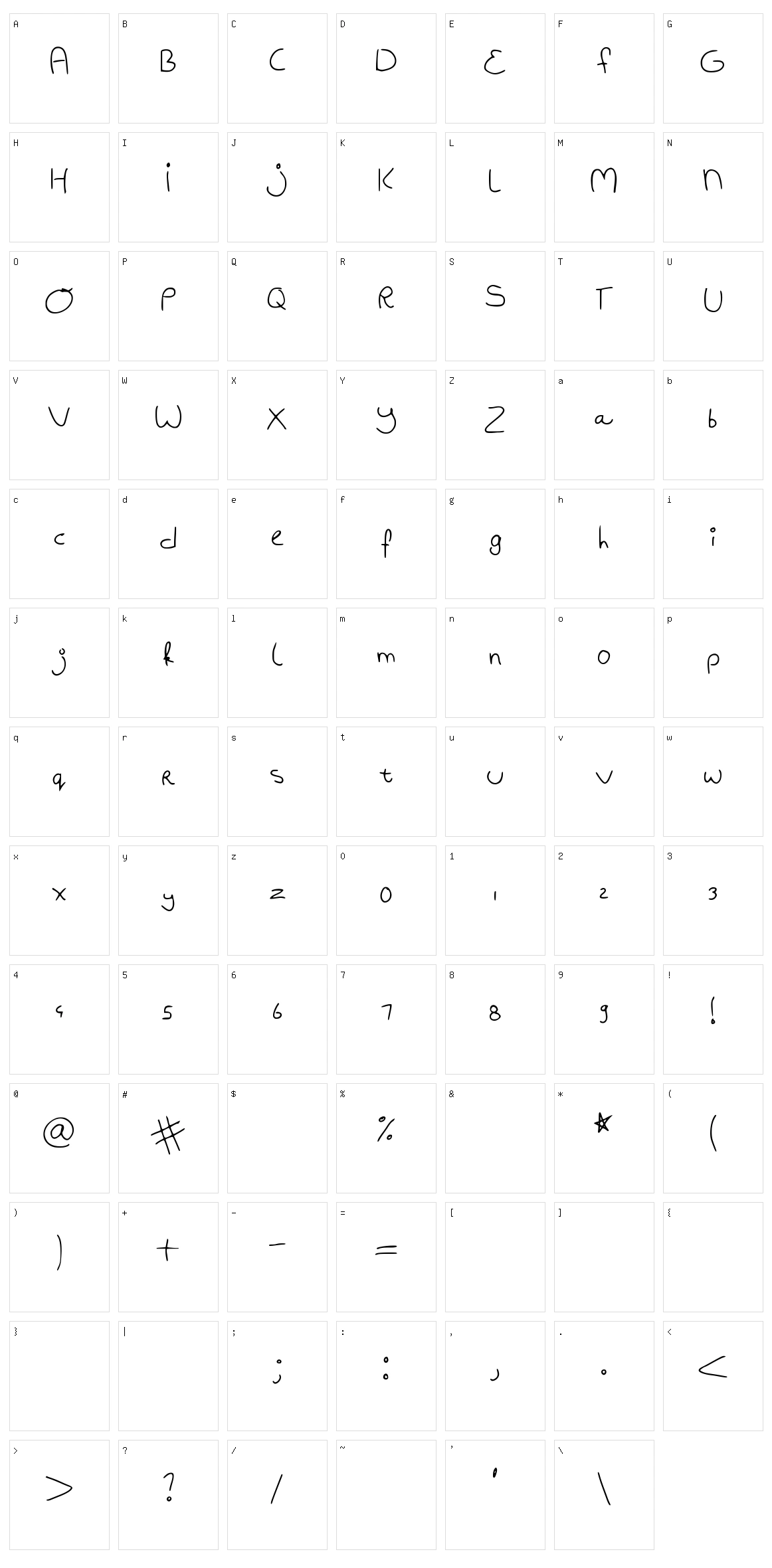
The free font Bad handwriting is carefully designed by Ellen Landman, showcasing a thoughtful balance of creativity and usability and falls under the Script font style. When you download the ZIP file, it contains only 11.15 KB of font files, making it lightweight and quick to download. Please review the license details below to understand permitted usage and distribution rights. If license information is not available, we recommend using this font for personal projects only or contacting the author directly for commercial usage permissions.